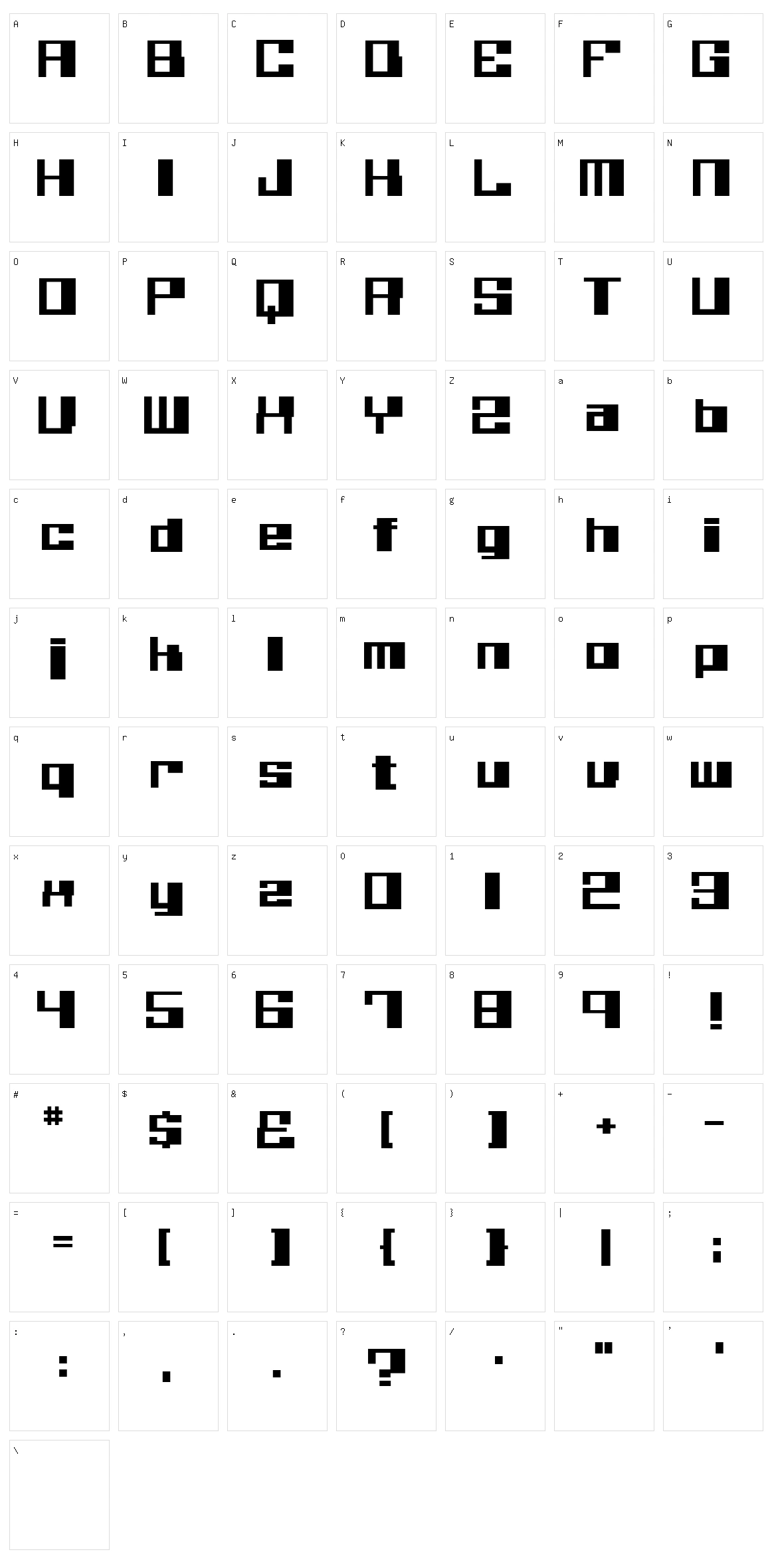
The free font Believer is carefully designed by Eisuke Furukawa, showcasing a thoughtful balance of creativity and usability and falls under the Square font style. When you download the ZIP file, it contains only 7.67 KB of font files, making it lightweight and quick to download. Please review the license details below to understand permitted usage and distribution rights. If license information is not available, we recommend using this font for personal projects only or contacting the author directly for commercial usage permissions.